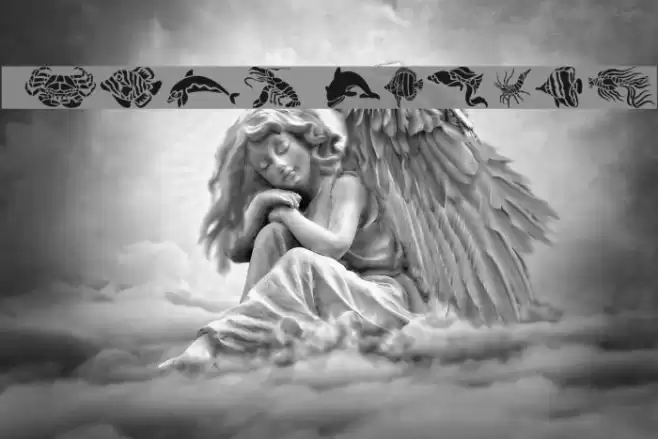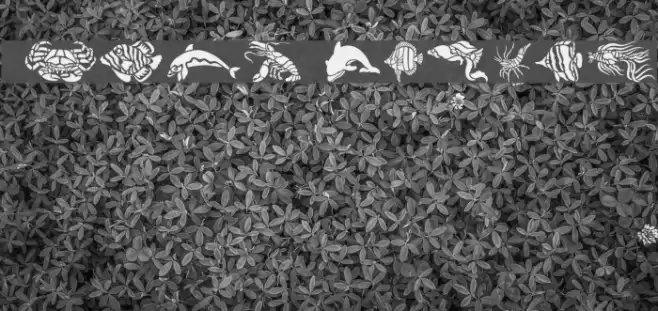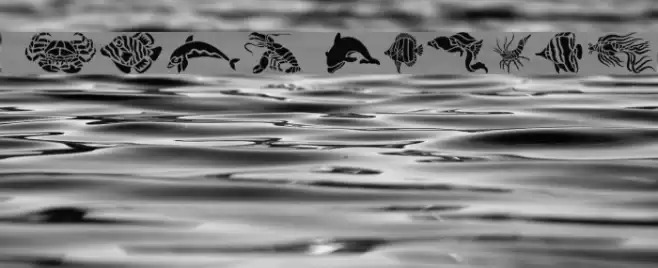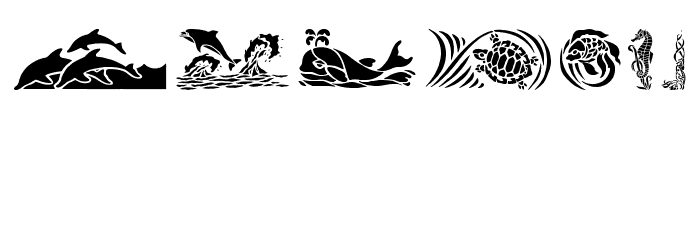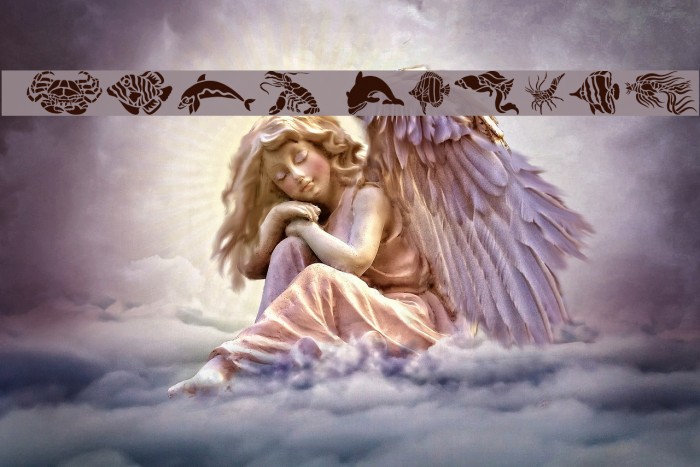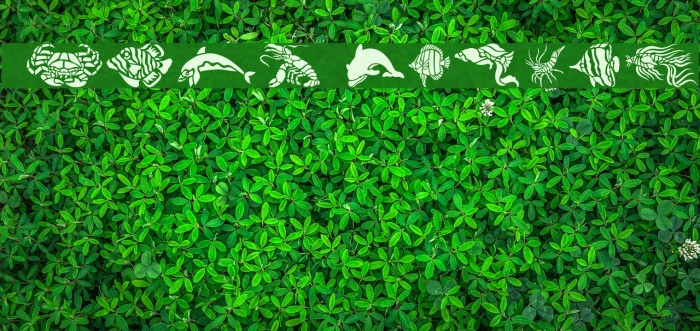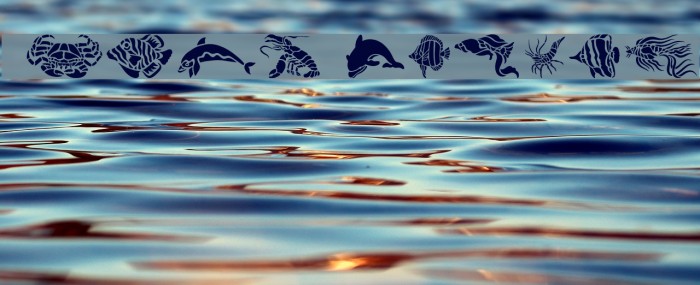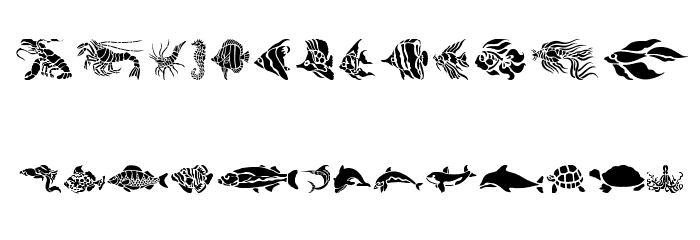
HFF Aqua Stencil Font
HFF Aqua Stencil Description
This decorative font features a collection of aquatic-themed stencil designs, each character representing a unique sea creature or oceanic motif. The designs are intricate, with bold outlines and detailed cutouts that create a striking visual effect reminiscent of traditional stenciling techniques. The characters include a variety of marine life such as fish, dolphins, turtles, and seahorses, each rendered in a stylized manner that emphasizes their distinctive shapes and features. The overall aesthetic is playful and artistic, making it suitable for projects that require a touch of marine-inspired creativity.
A decorative stencil font featuring intricate aquatic-themed designs from Dingbats fonts.
- Proposed Projects: Ideal for ocean-themed event posters, educational materials about marine life, or creative projects like scrapbooking and custom stationery.
- Contrast: High
- Use Case: Logos, Posters, Creative projects